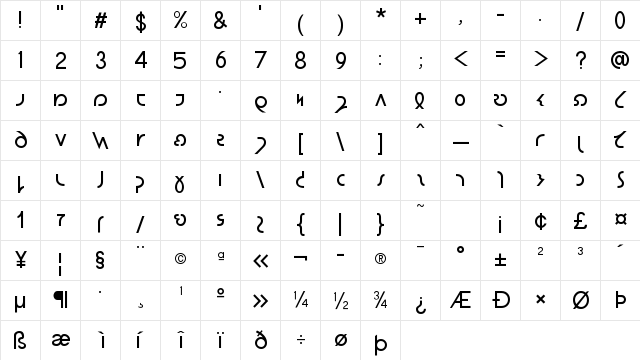
ESL Gothic Shavian Medium
| Designer | Ethan S. Lamoreaux |
Design Context for ESL Gothic Shavian Typeface
ESL Gothic Shavian has the quiet confidence of well-executed sans-serif typography: versatile, unobtrusive, and dependable at any size.
Font Pairing: Works well alongside a characterful serif or display font that can carry the expressive load while ESL Gothic Shavian handles the functional copy.
Pro Tip: Pair ESL Gothic Shavian with a display or serif font for headlines — its neutral character makes it an excellent supporting player in complex typographic systems.